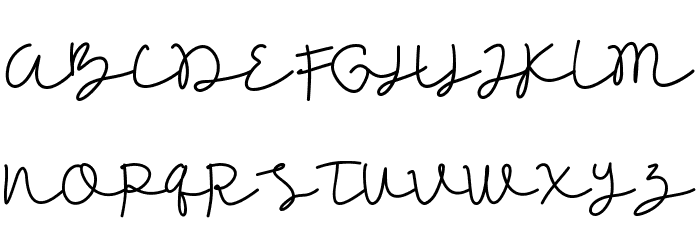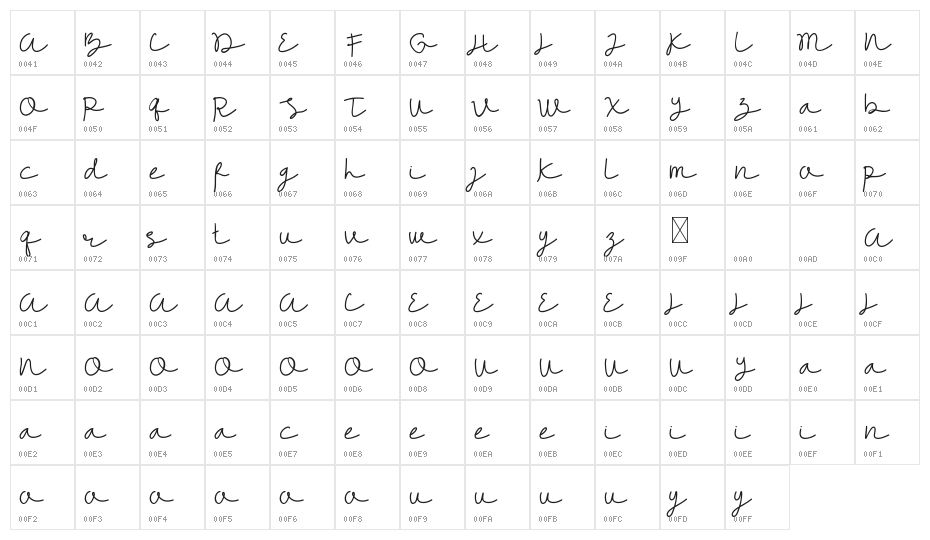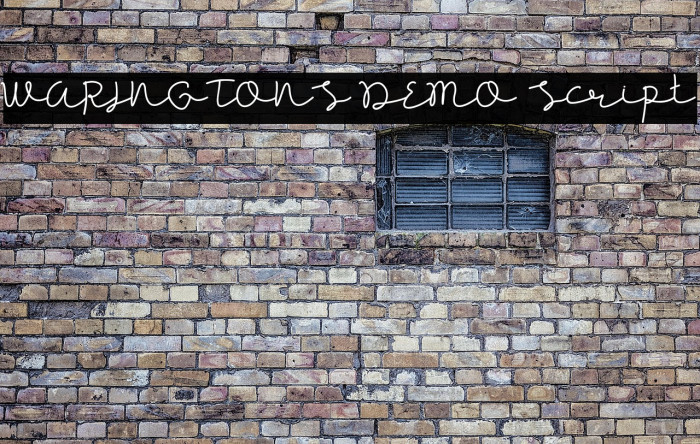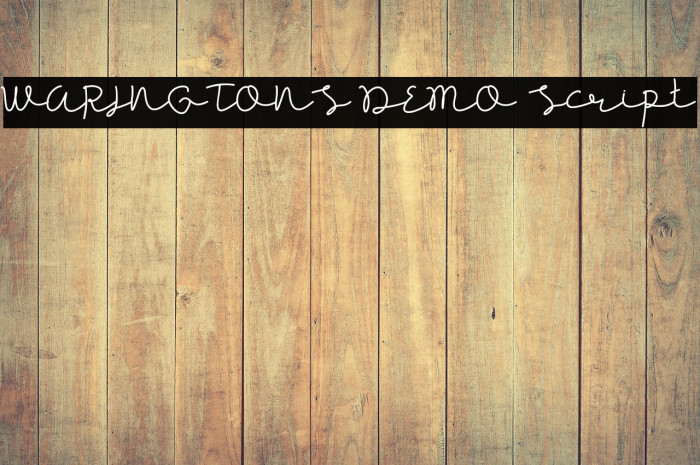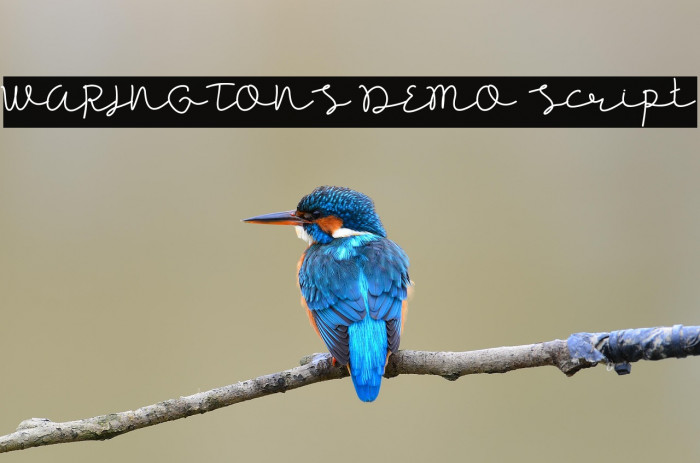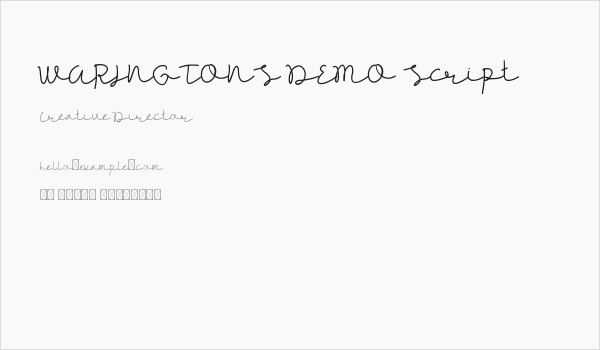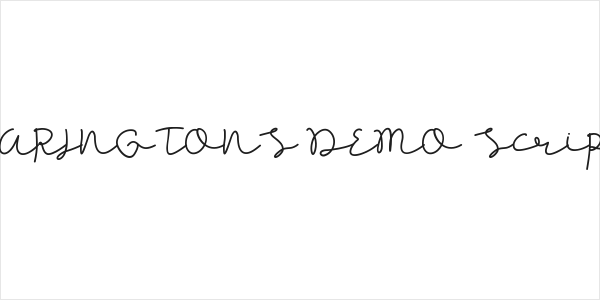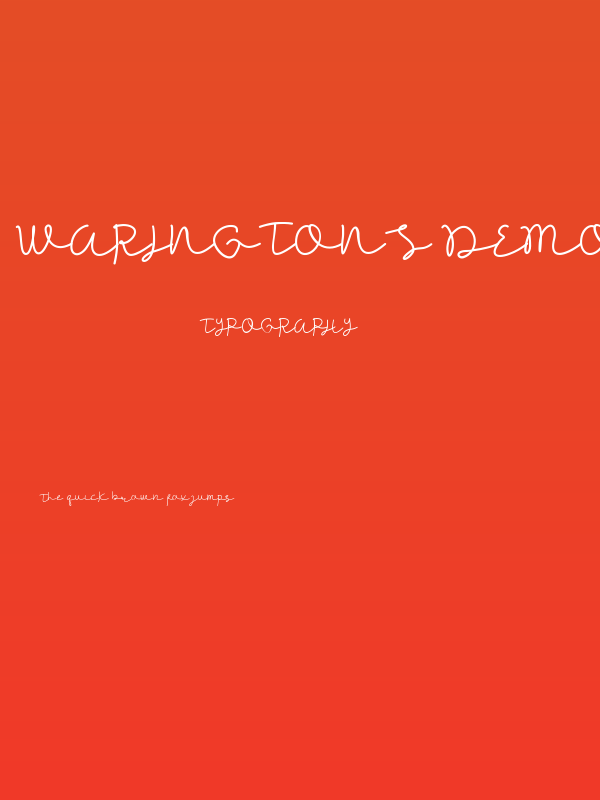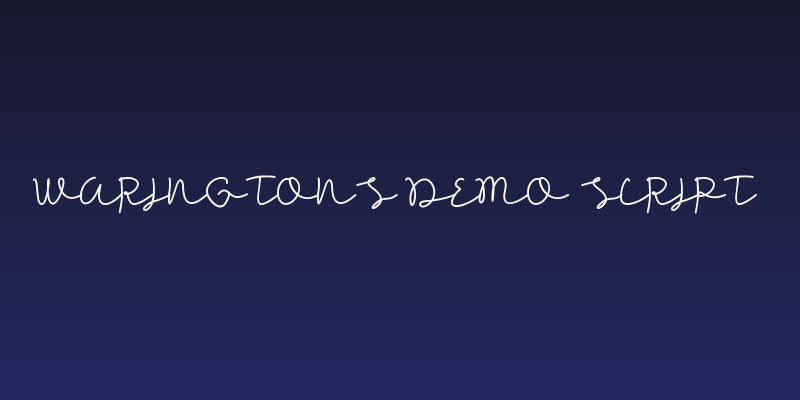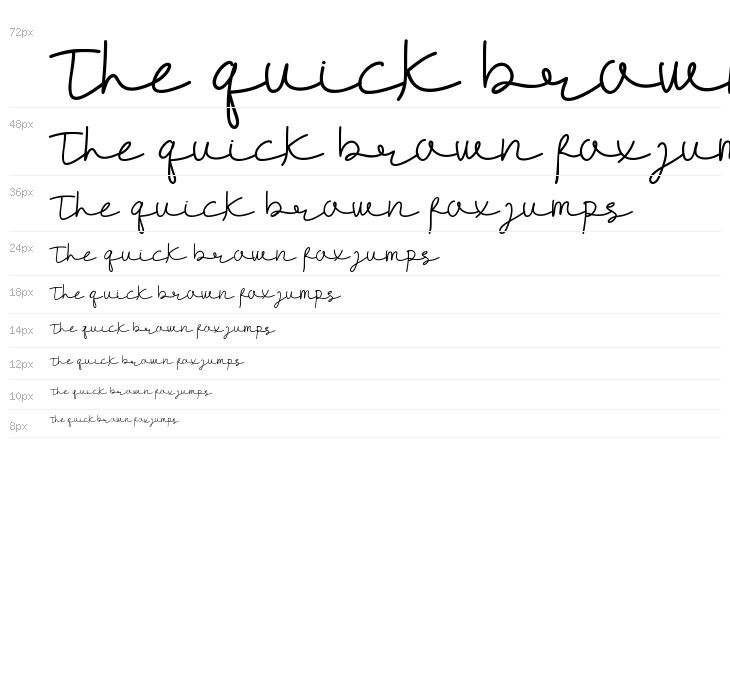
WARINGTONS DEMO Script Font
WARINGTONS DEMO Script Description
This font features a charming and fluid script style that mimics natural handwriting. The characters are elegantly connected, creating a seamless flow from one letter to the next. The uppercase letters are slightly more ornate, with subtle loops and curves that add a touch of sophistication. The lowercase letters maintain a consistent style, with gentle curves and a slight slant that enhances readability. The overall appearance is both casual and refined, making it suitable for a variety of design projects. The font's thin strokes and moderate spacing give it a light and airy feel, perfect for conveying a sense of elegance and grace.
| Overall Style | Elegant, Casual |
| Proposed Projects | Ideal for wedding invitations, greeting cards, personal branding, and elegant logos. |